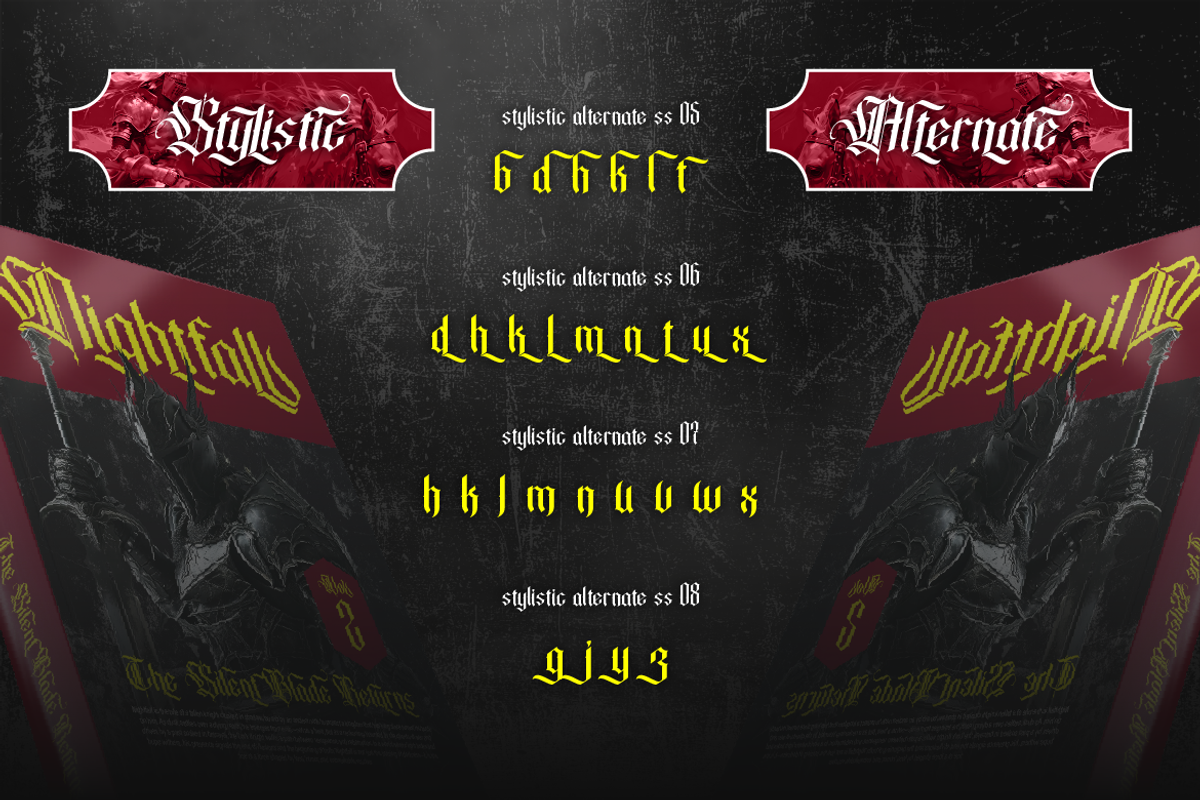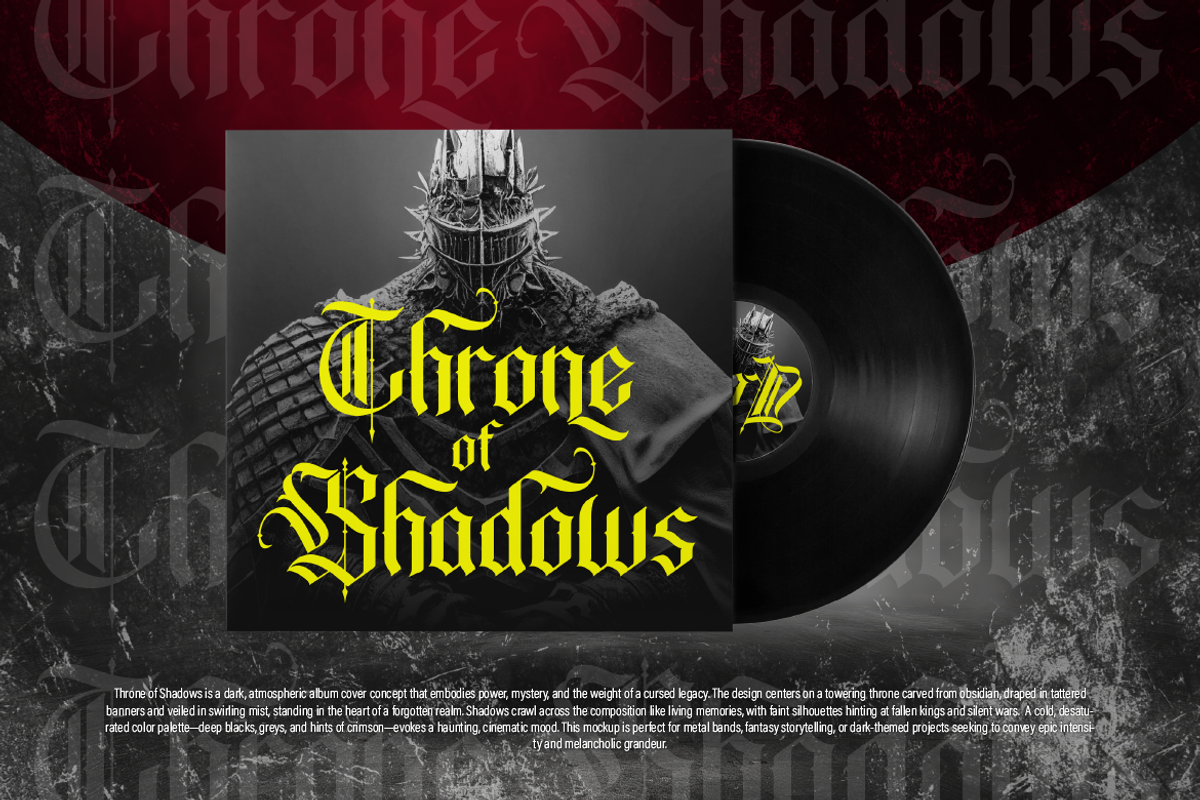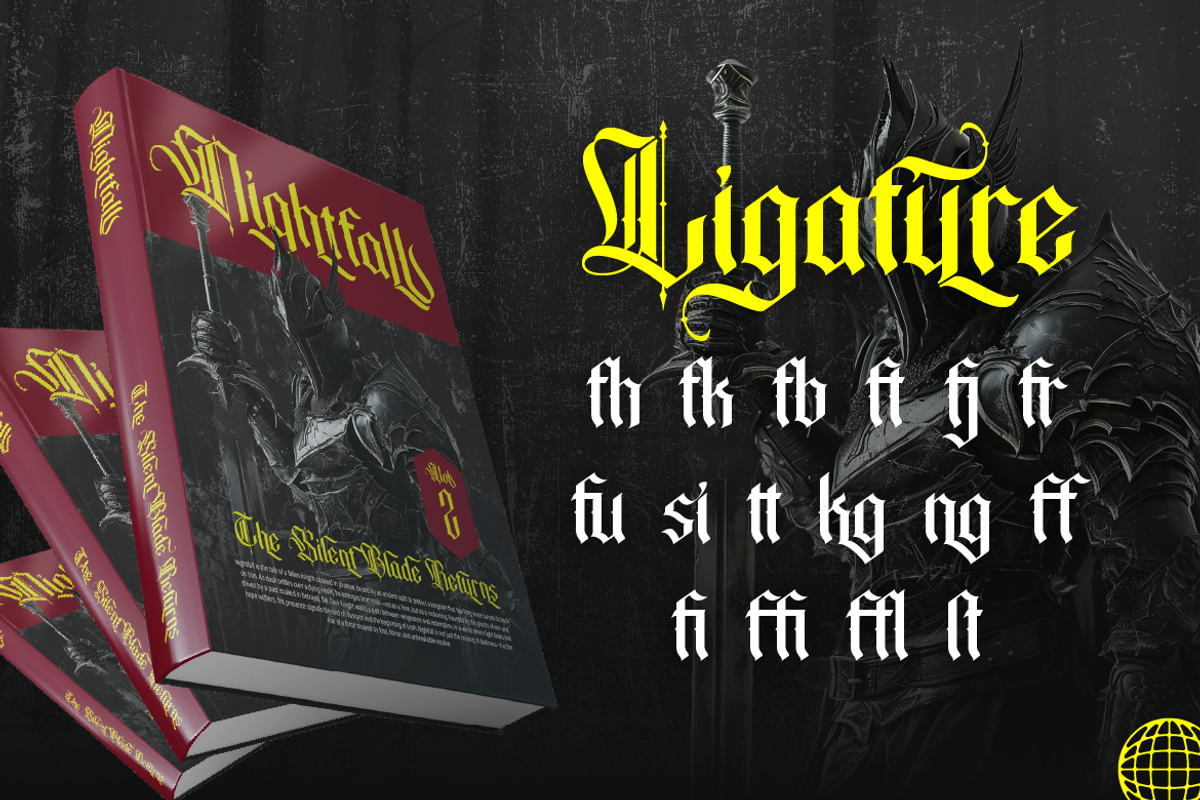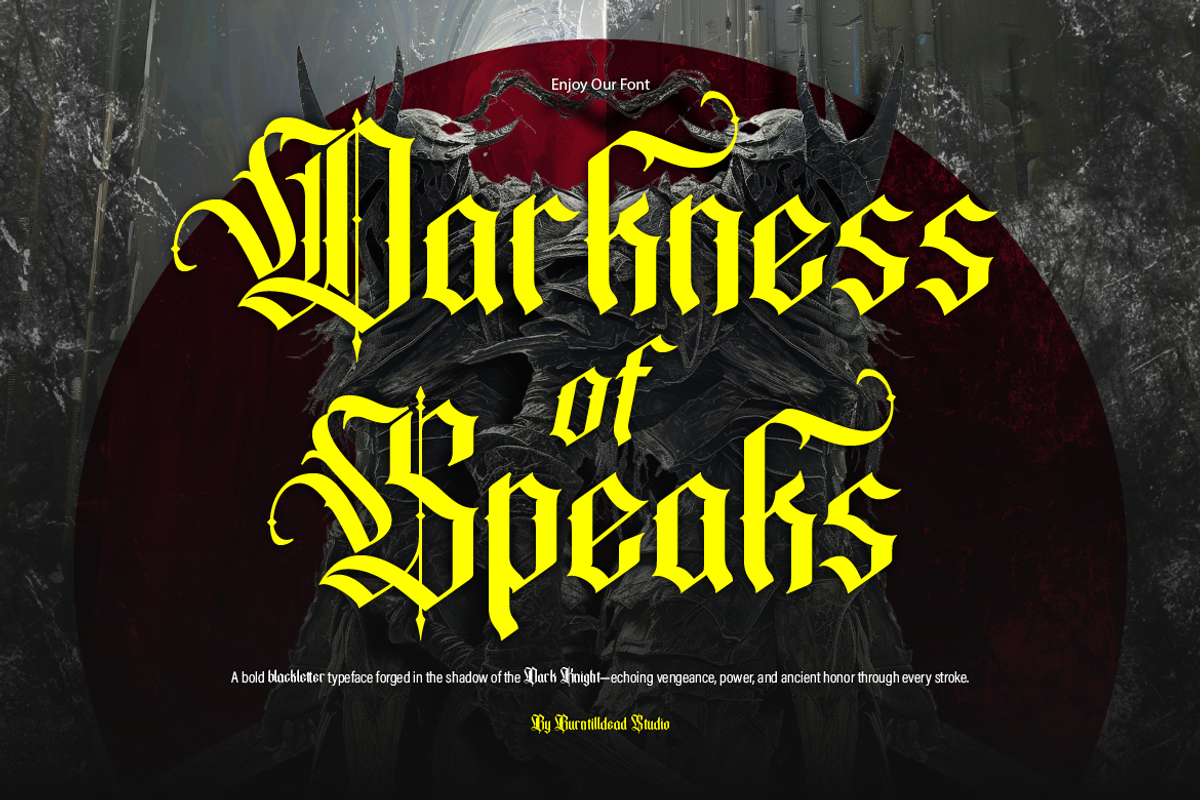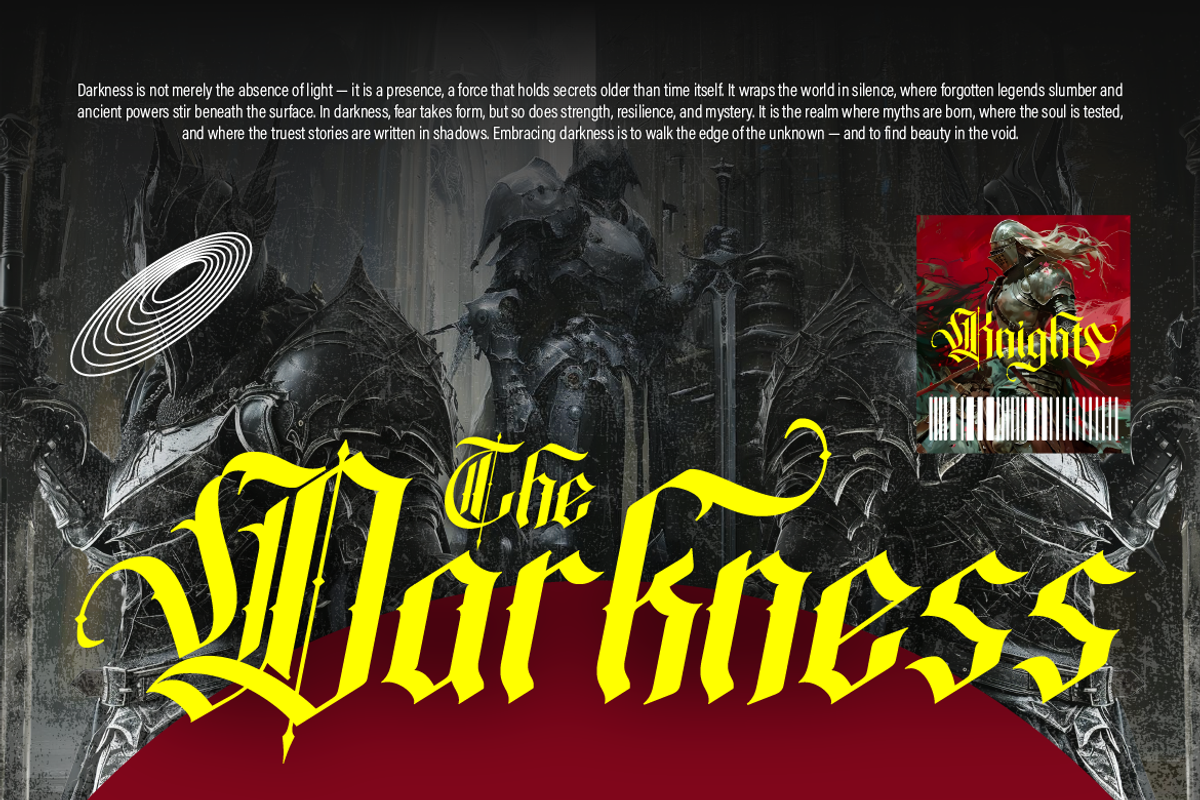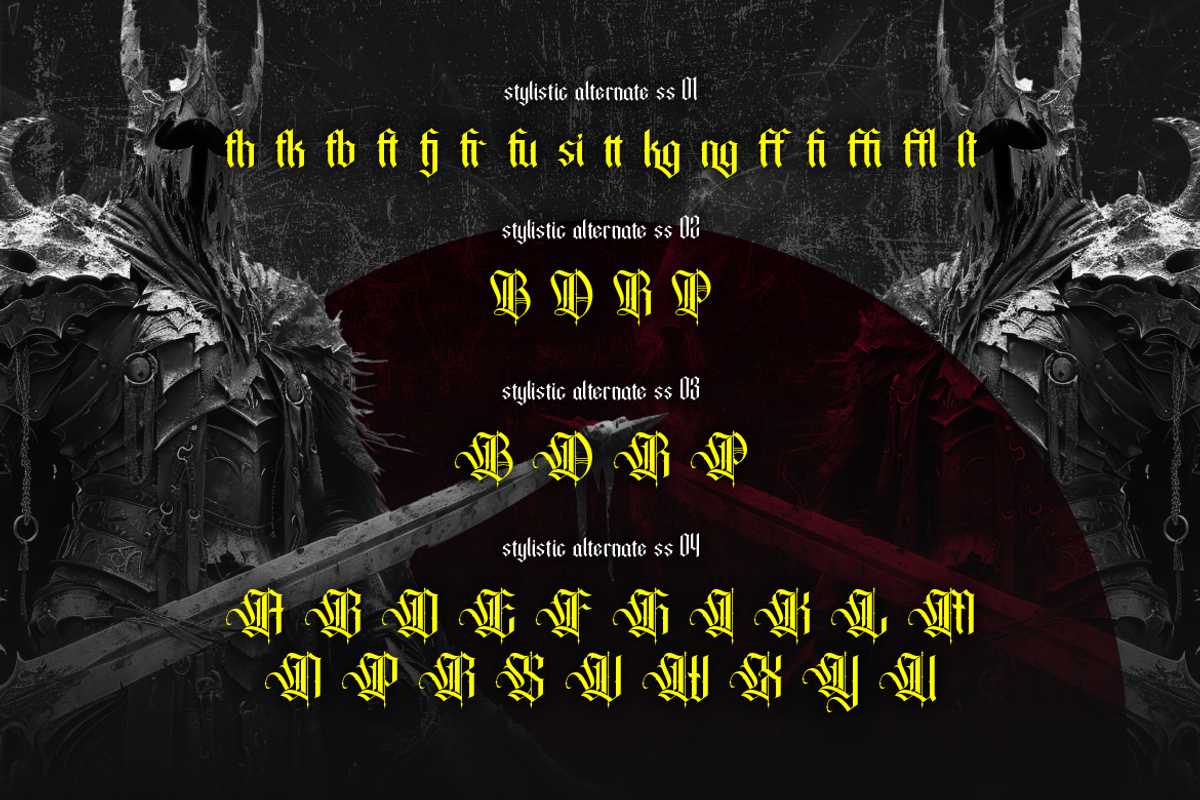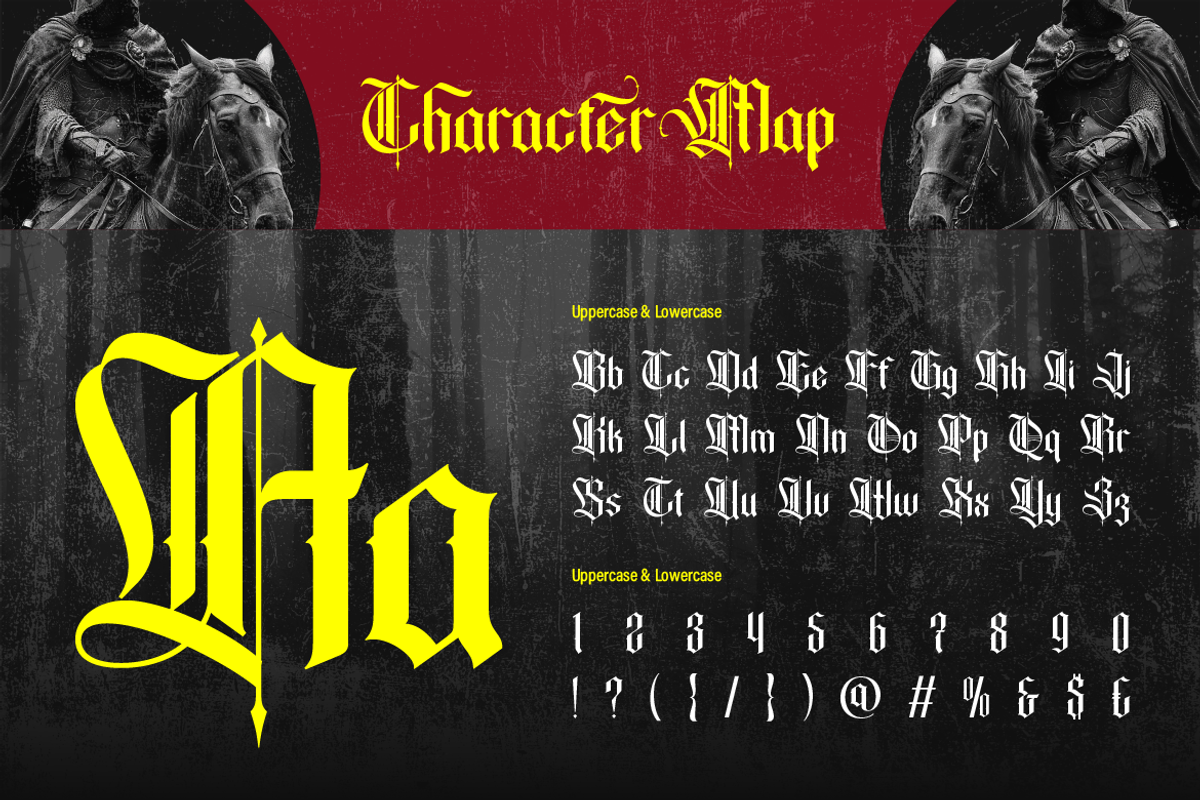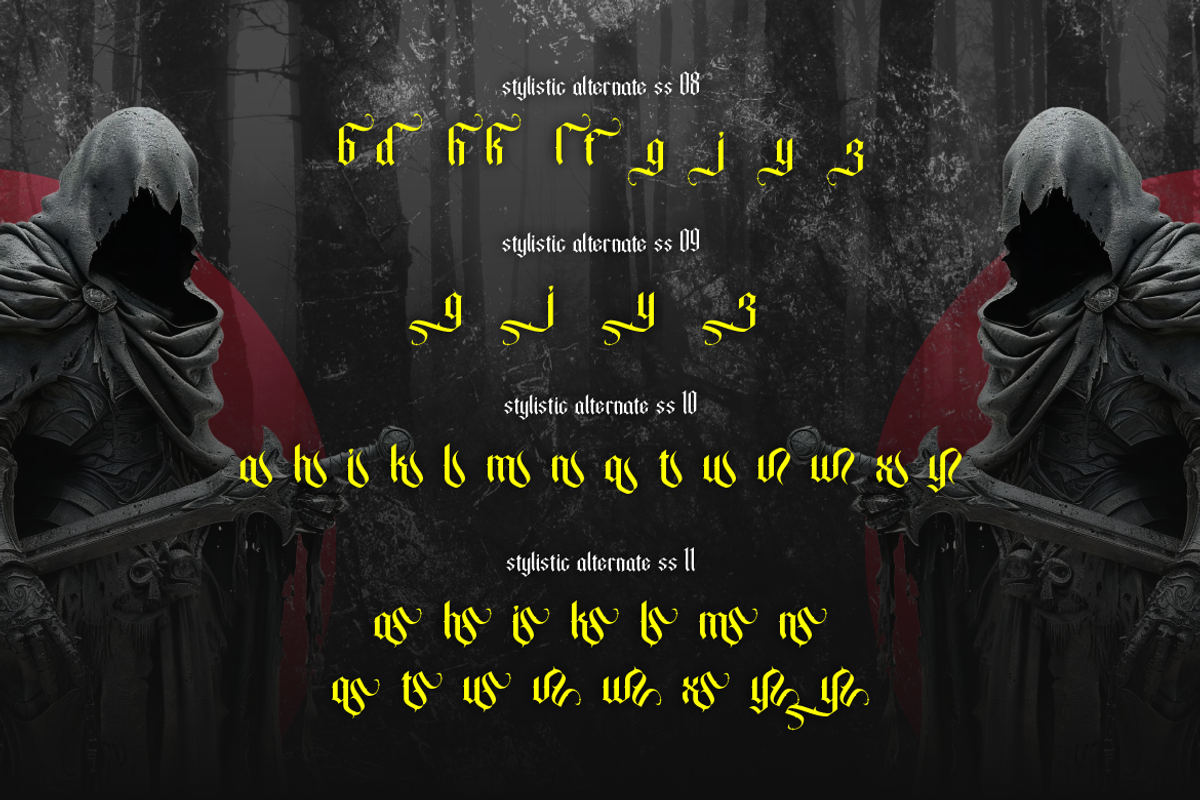
Bathory
Introducing Bathory — a blackletter font that brings a bold sense of darkness, gothic vibes, and mystery. It features thick, ornamental strokes, sharp curves, and dramatic flourishes. Bathory comes in two styles: Regular and Oblique, offering visual flexibility for various design needs. Perfectly suited for fantasy, medieval, or occult themes, this font evokes the dark atmosphere of worlds like Dark Souls or Diablo, and is ideal for metal band posters. Commonly used for game or movie covers, metal music posters, festival flyers, tattoo designs, merchandise, book titles, or any branding that leans into gothic or mystical aesthetics.